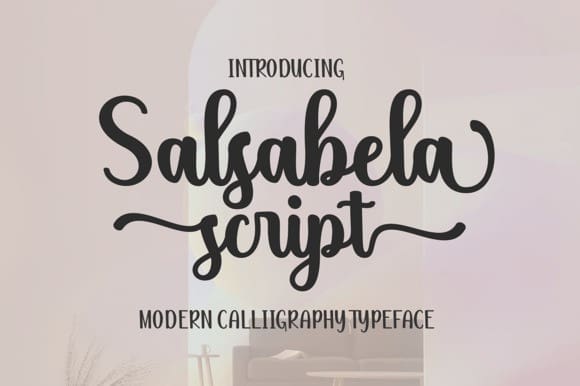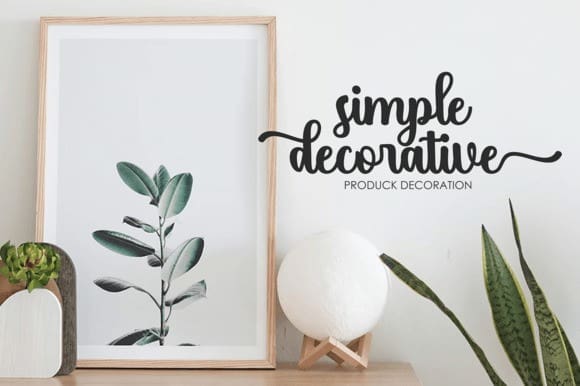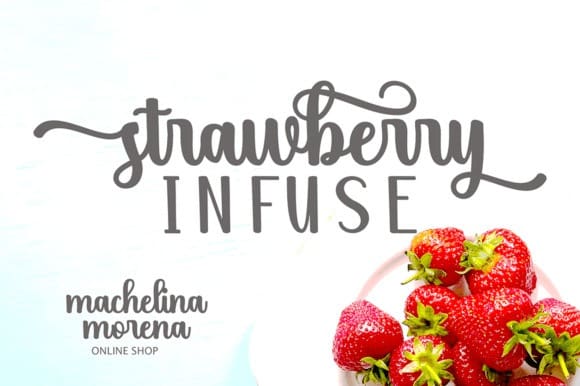
Salsabela Script Font
Salsabela Script Font, is a romantic and sweet calligraphy typeface with characters that dance along the baseline. It will add a luxury spark to any design project that you wish to create! This font is PUA encoded which means you can access all of the amazing glyphs and ligatures with ease!